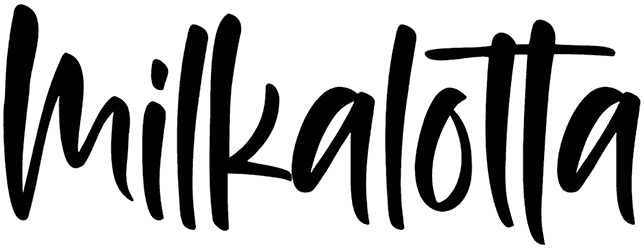
Milkalotta Font
Milkalotta is a handwritten font that has the true potential to turn any kind of graphic design, such as posters, flyers, menus, gift cards, and book covers, into a lovely piece of art.
Since its characters are a little bit tilted and oblique, it can establish a sense of disorder, grunge, playfulness, and drama in your artwork. Considering its limitless beauty, not fully supporting numbers will not be a real problem.